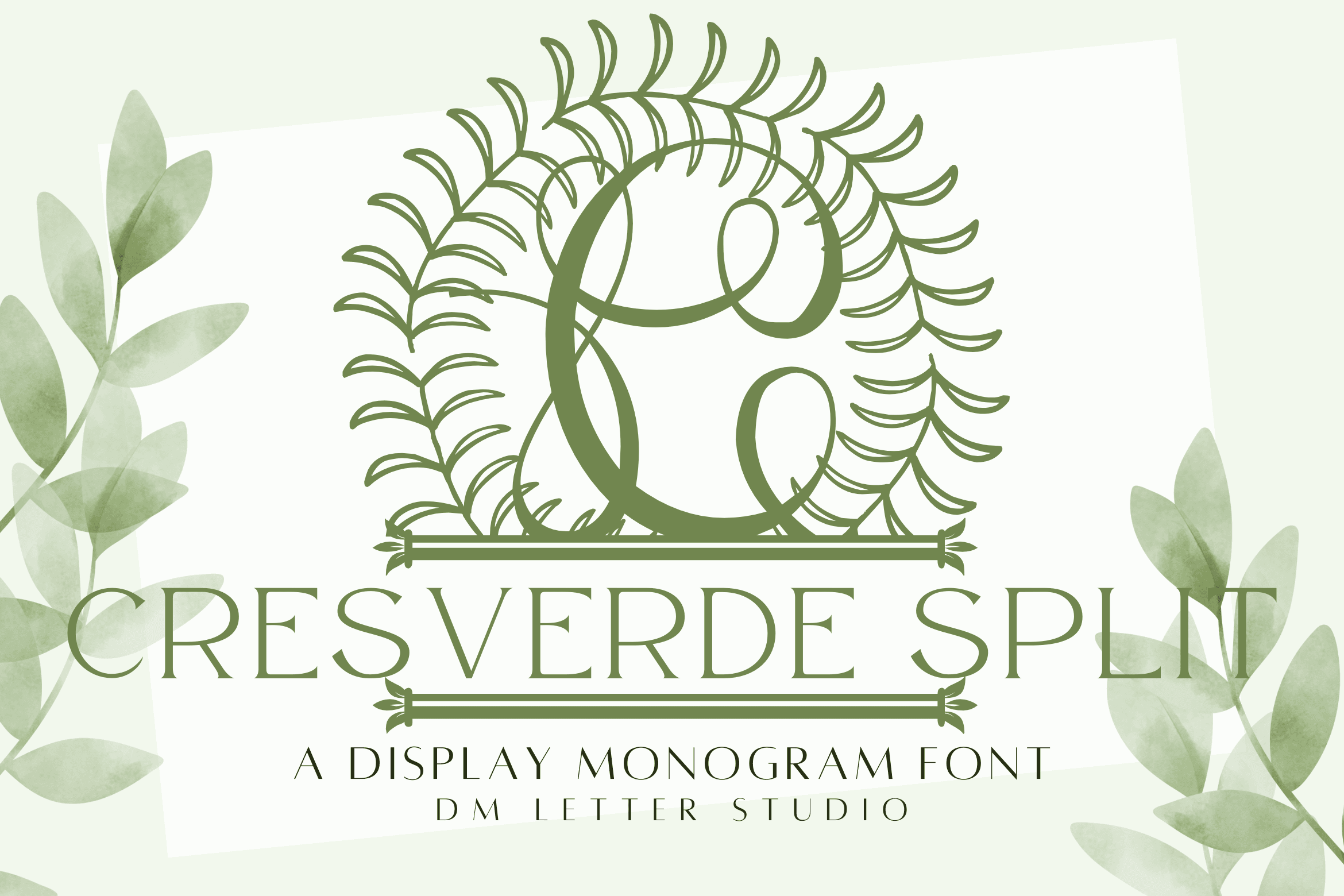
Meet Cresverde Split Monogram Font
Cresverde Split Monogram turns simple initials into fresh, leafy crests with a clean center split for names or dates. The letterforms are smooth and balanced, inspired by growth and greenery, so they stay readable at any size. Because counters remain open, small tags print crisp while larger marks look refined and confident. Use it for wedding suites, boutique logos, wellness brands, stationery, and premium packaging. As a result, your designs feel natural, personal, and premium in minutes.
Fast layouts with the Cresverde Split Monogram Font
Start with a bold split initial and center it like a seal. After that, add a family name, brand name, or date across the split using a separate supporting font if needed. Because Cresverde Split holds shape at small sizes, labels, stickers, cards, and tags stay sharp. In addition, it pairs beautifully with wreath frames, laurel rings, oval borders, and fine dividers, so full sets come together fast. Finally, save palette pairs like sage & ivory, olive & linen, champagne & charcoal, or forest & pearl to reuse across product lines.
Creative uses and quick wins
Wedding initials with names or dates across the split
Logo seals, brand badges, and boutique marks
Gift tags, stickers, and keepsake box marks
Candle, soap, tea, and skincare packaging
Design tips for Cresverde Split Monogram Font
Keep the center text short so the initial remains the hero. Also, give the crest breathing room so details stay readable at small sizes. For a premium finish, try soft foil, embossing, or letterpress on textured stock. Finally, export at 300 DPI for print and at 2× size for web so edges stay smooth everywhere.